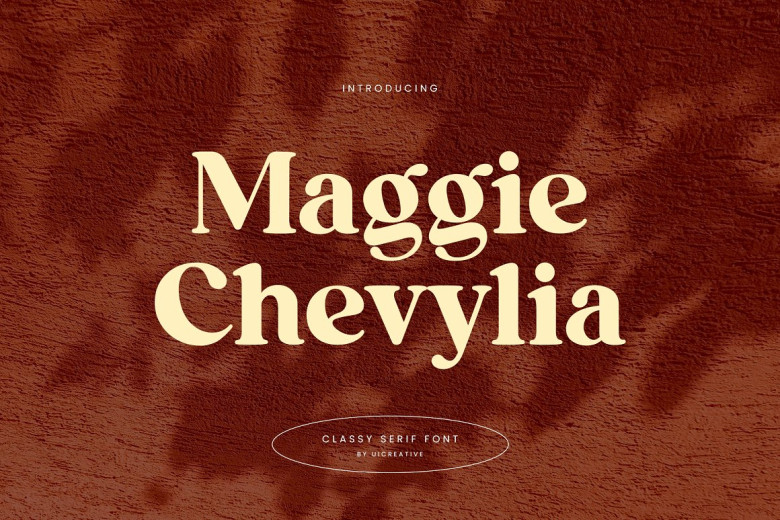
Maggie Chevylia Font
Classy and elegant, Maggie Chevylia is a beautiful serif font that looks modern. This font is particularly well suited for all sorts of projects–signature, stationery, logo, wedding, typography quotes, magazine or book covers, website headers, clothing, branding, packaging design… and more. Also teamed in fashion-related branding or editorial design, it has both masculine and feminine qualities.
Maggie Chevylia Serif Font